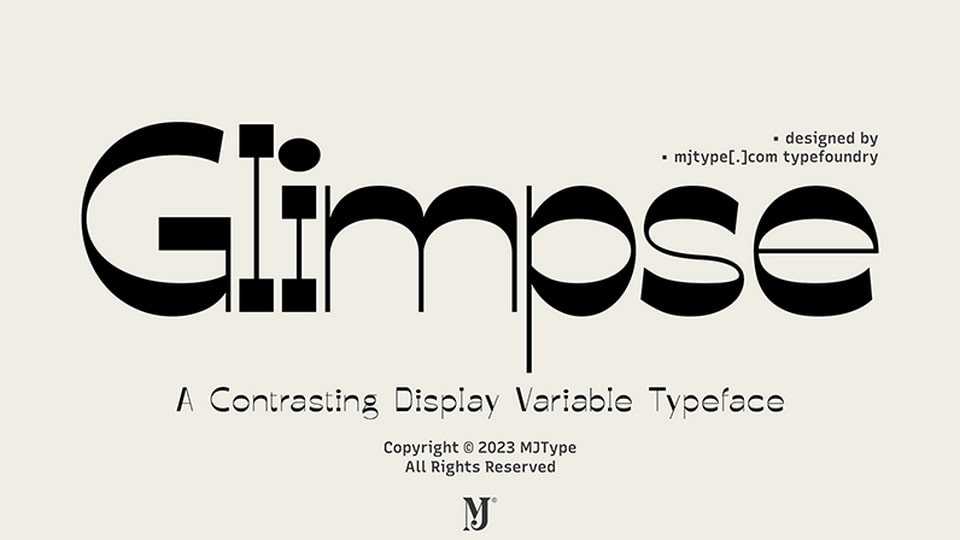
Download Glimpse font, a modern sans serif typeface with a reverse contrast approach that provides a fresh take on display fonts. Glimpse font allows designers to play with visual hierarchy in an innovative way.